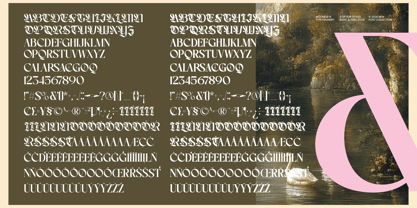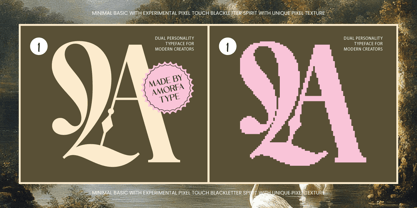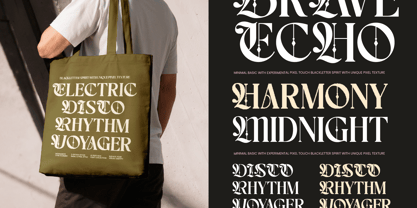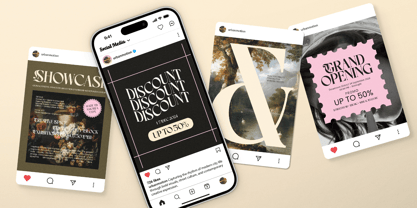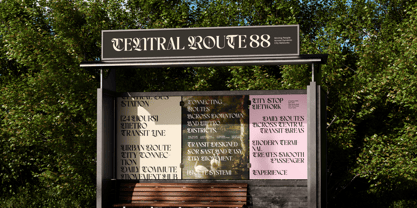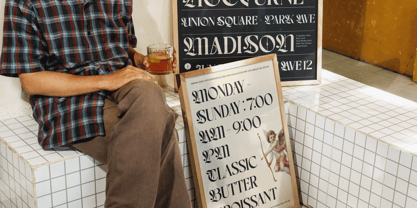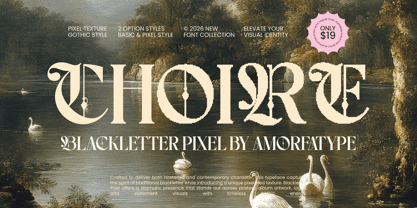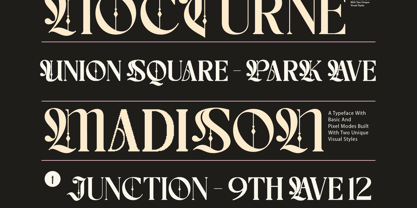
Choire Pixel
by Amorfa Type
The Choire Pixel Font Family was designed by Shiddiq Roihan and published by Amorfa Type. Choire Pixel contains 2 styles and family package options. More about this family
Choire is a blackletter pixel font that combines classic gothic aesthetics with retro digital pixel styling. Inspired by medieval blackletter typography and old-school bitmap visuals, this font delivers a bold, unique, and experimental look for modern creative projects.
Equipped with stylistic alternates, ligatures, and multilingual support, Choire offers more flexibility for creating strong and eye-catching typography compositions. The sharp pixel structure and gothic letterforms make this font perfect for posters, branding, album covers, gaming visuals, streetwear, editorial layouts, merchandise, and experimental display design.